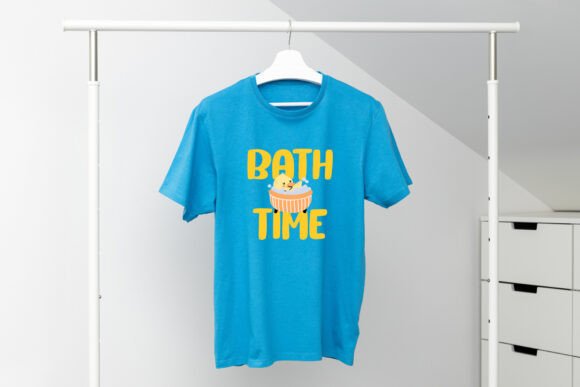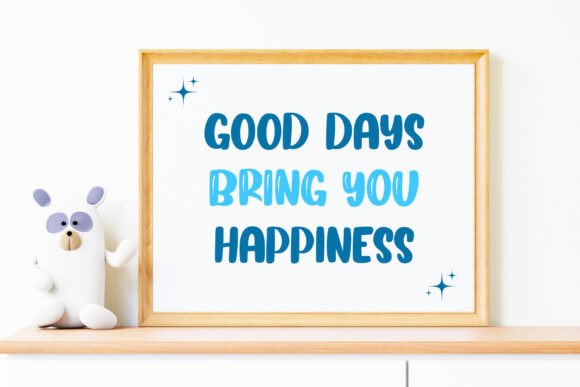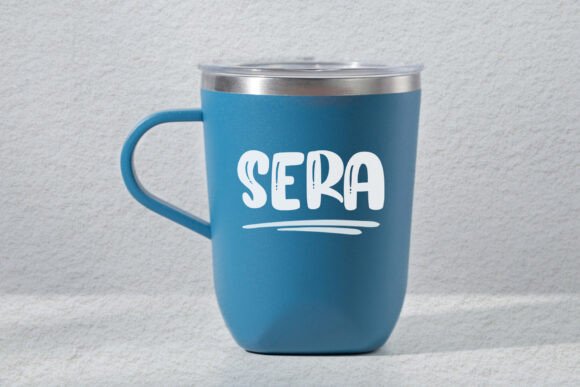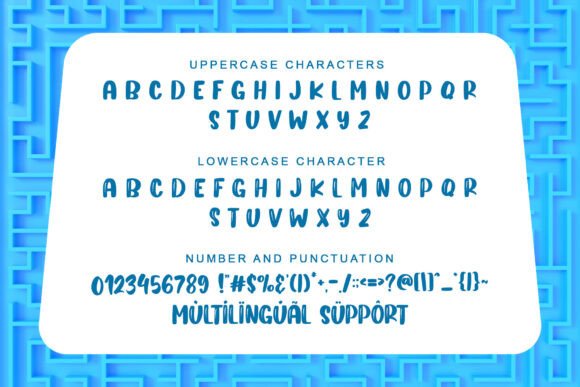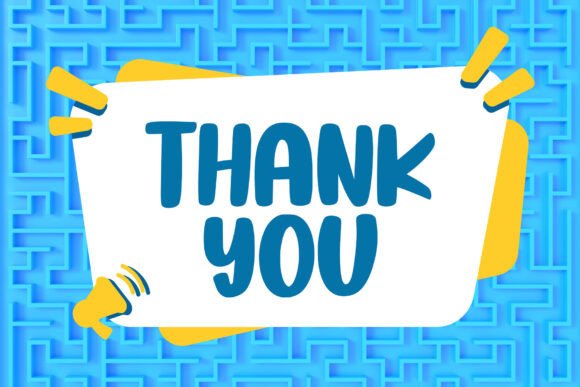
Introduction to Game Buble Font
Do you remember the rush of excitement when you finally beat your favorite video game? The thrill of accomplishment, the pride of overcoming challenges, and the joy of celebrating with friends? For many of us, this feeling is closely tied to the vibrant and playful graphics that accompanied our gaming experiences. One font that perfectly captures this essence is the Game Buble Font, a bold and rounded display font that’s sure to bring energy and excitement to any creative project.
As designers, we’re always on the lookout for the perfect design resource to elevate our work. Whether it’s a high-quality font for a game title, a poster, or a kids’ design, the Game Buble Font is a valuable addition to any designer’s toolkit. With its transparent background and high-quality design, it’s perfect for use on any project that needs a fun and playful touch.
- Unique, hand-drawn style that adds a touch of personality and whimsy to any design or creative project.
Honest Review: Game Buble Font
As a designer, I’m always on the lookout for high-quality design resources to enhance my creative projects. Recently, I came across the Game Buble Font, and I was excited to give it a try.
What works well about this font is its playful and bubbly personality, making it perfect for designing game-related assets or even children’s educational materials. The font is available for free download, which is a major plus for designers on a budget.
- ✨ Playful and fun design that’s perfect for game-related projects or children’s educational materials
- ✨ High-quality font that’s suitable for both digital and print projects
However, there are some limitations to keep in mind. The font only comes in a single style, which might limit its versatility for more complex design projects. Additionally, the font doesn’t have a transparent background option, which can be a bit restrictive for designers who need to use it on top of images or other backgrounds.
Overall, I’d say the Game Buble Font is a great addition to any designer’s toolkit, but it’s essential to be aware of its limitations and use it in projects where its playful personality will shine through.
Use Game Buble Font in conjunction with a transparent background to create a unique and eye-catching design. This font is perfect for creative projects that require a high-quality, design resource.
Game Buble Font is ideal for use in video game graphics, animations, and other digital design projects. It’s also great for use in presentations, brochures, and other marketing materials that require a fun and playful tone.